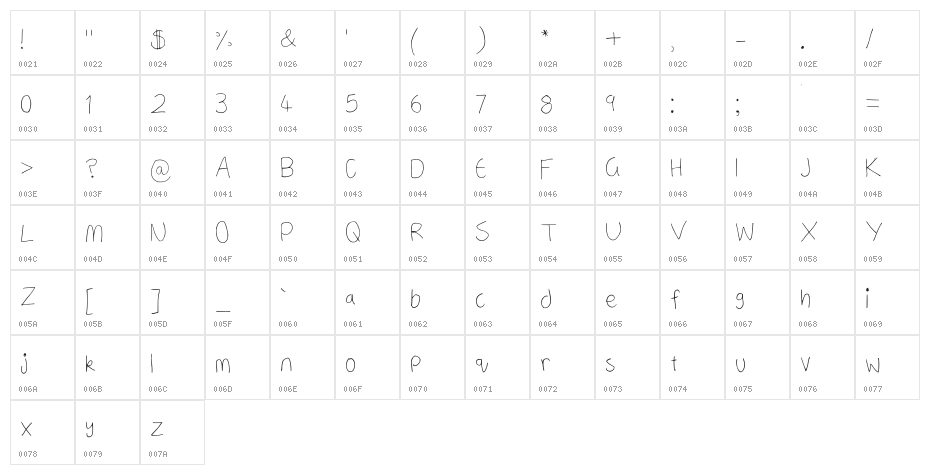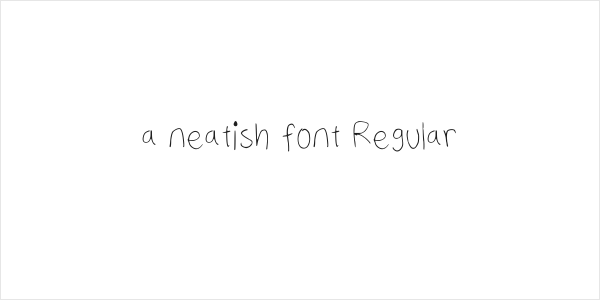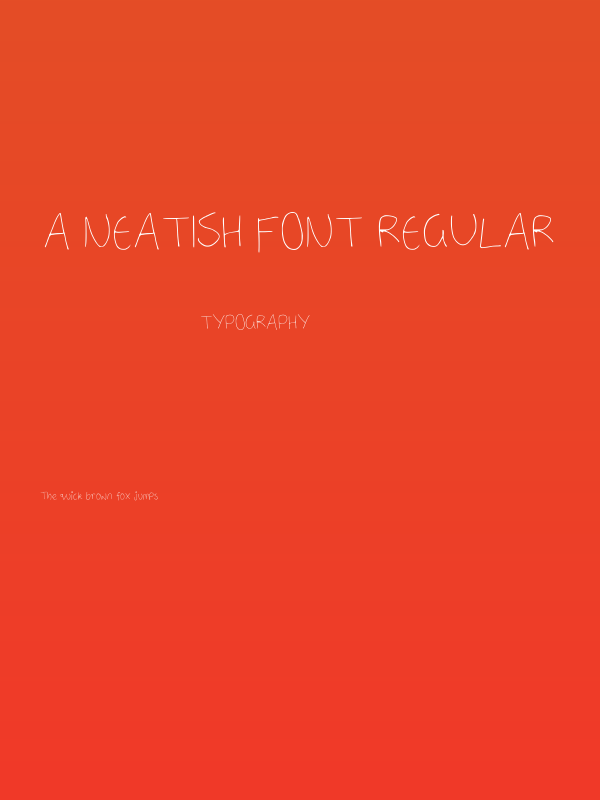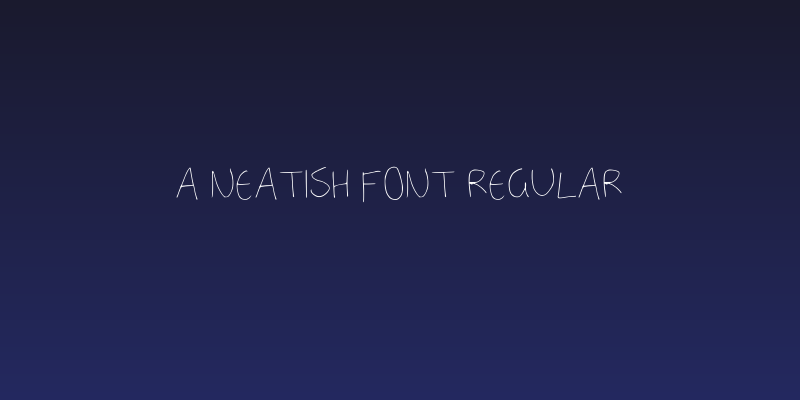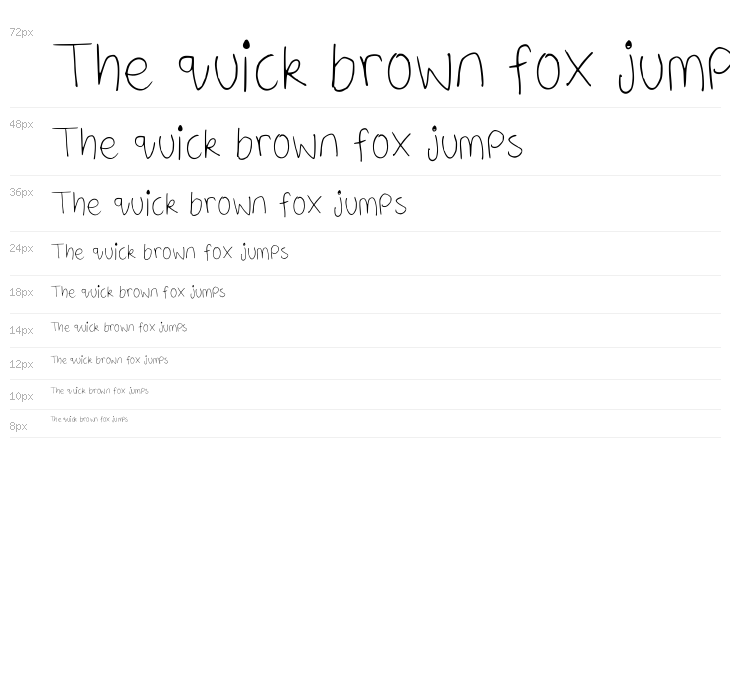
a neatish font Regular Font
a neatish font Regular Description
This font features a playful and casual handwritten style, characterized by its thin, uneven strokes and slightly irregular letterforms. The uppercase and lowercase letters maintain a consistent flow, giving it a friendly and approachable appearance. The numbers and special characters are designed with the same whimsical touch, making them blend seamlessly with the alphabet. The overall look is informal yet legible, suitable for projects that require a personal or creative touch.
| Proposed Projects | Ideal for greeting cards, children's books, personal blogs, and creative branding projects. |